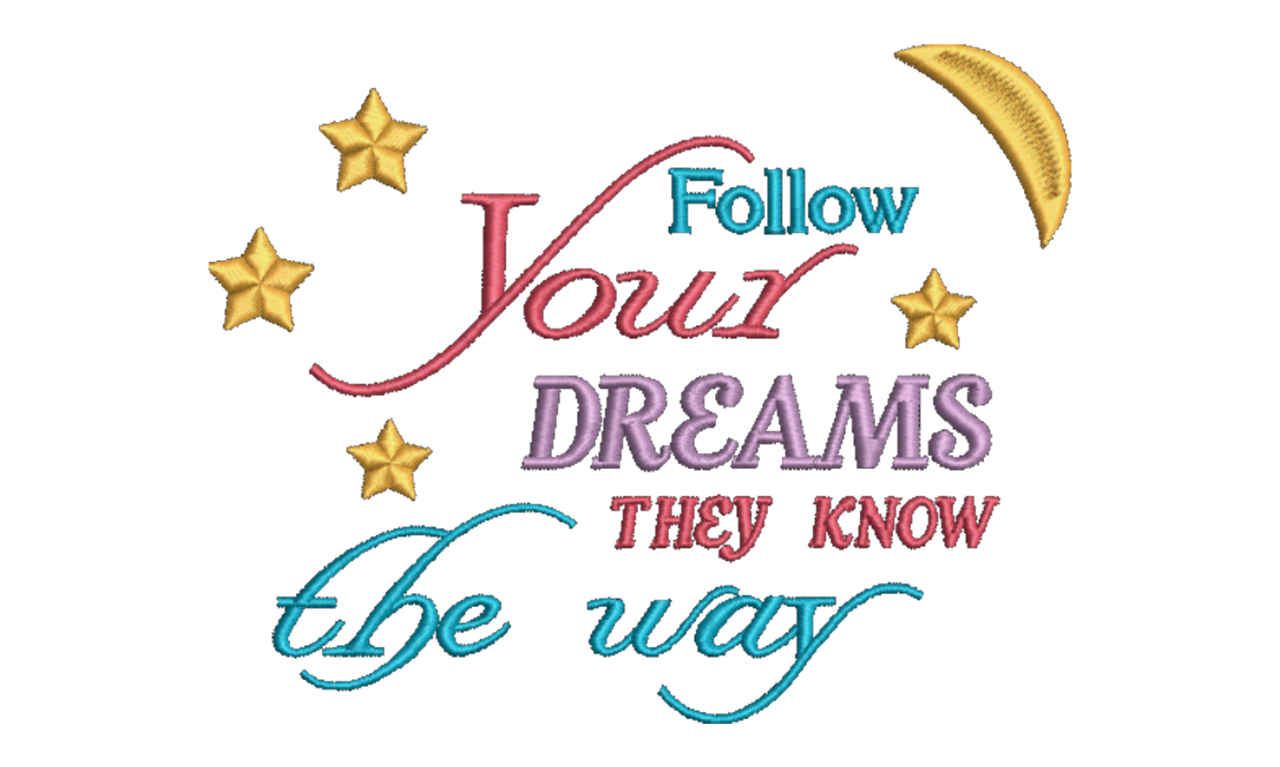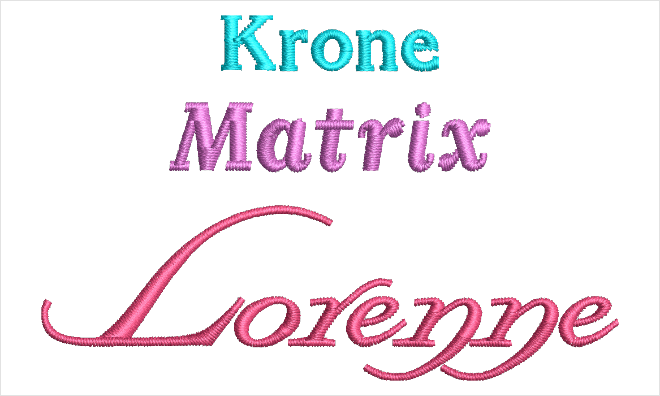
This collection brings together a semi-serif font with clean, bold, and contemporary look, a serif font with a modern style, and a fancy, yet modern script font.